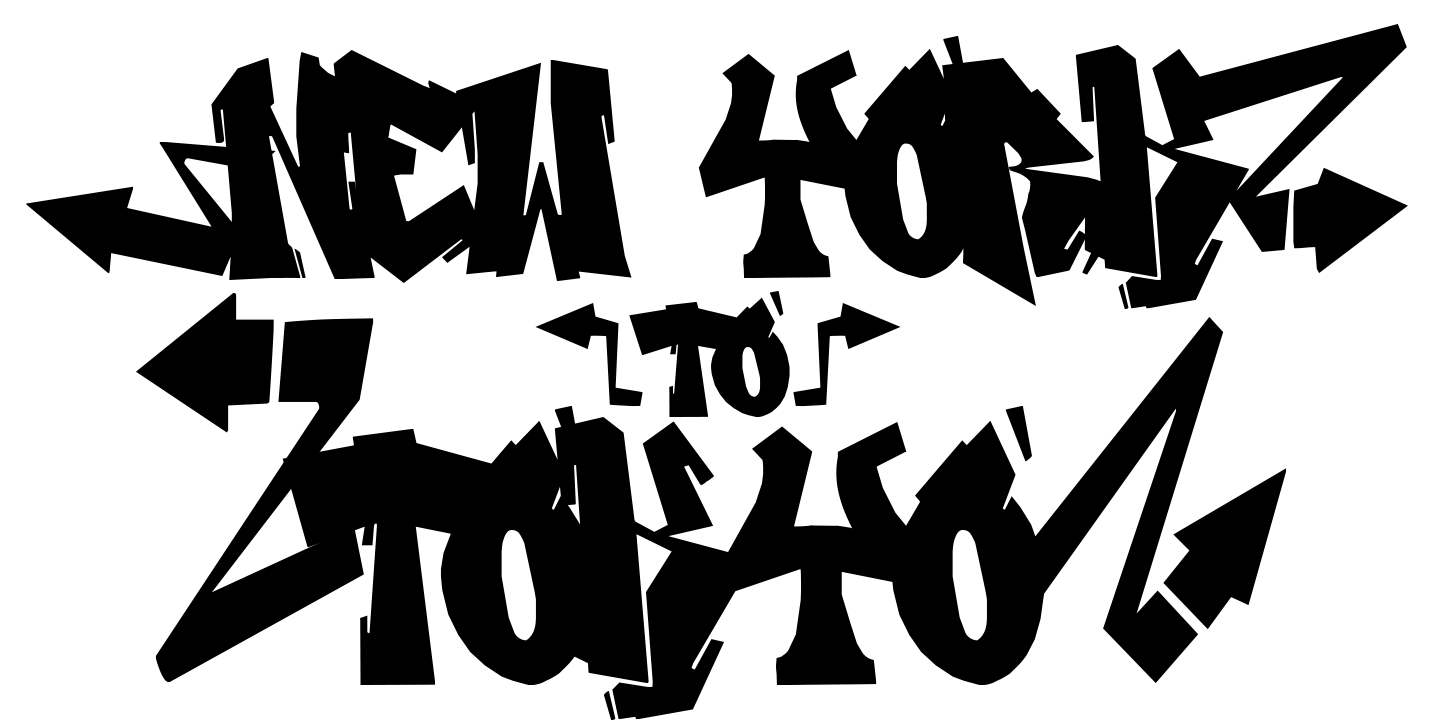
GRAFFROW Font is perfect for urban streetwear branding, hip-hop album covers, graffiti-inspired designs, street art projects, underground music posters, youth culture graphics, edgy fashion labels, and rebellious designs that require authentic street credibility and urban aesthetic.
This font is exciting because it captures the raw energy and rebellious spirit of street culture through its bold, edgy letterforms that echo the power of spray-painted walls and urban expression. The dynamic character design embodies the authenticity of underground art movements, making it perfect for brands seeking to connect with street culture and youth-oriented audiences.
GRAFFROW Font belongs to the urban display font family, featuring graffiti-inspired styling and street art elements that enhance its credibility for hip-hop culture and underground design applications.
Whether you're creating streetwear brand identities or underground music promotions, GRAFFROW Font Free Download delivers uncompromising urban impact and street authenticity. This typeface perfectly captures the essence of graffiti culture while maintaining professional design standards, making it essential for designers working on projects that demand street credibility and cultural relevance. The font's powerful presence works exceptionally well in logos, headlines, and promotional graphics, providing strong readability while maintaining its rebellious character that transforms any design into a bold statement across all media platforms.